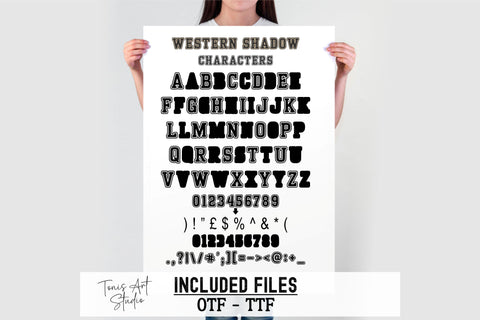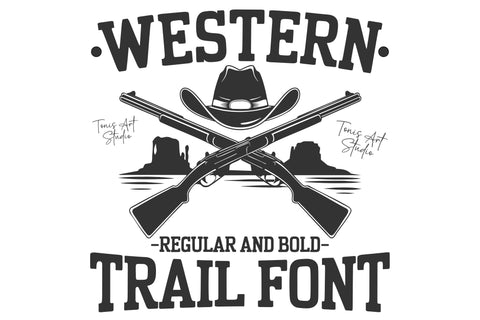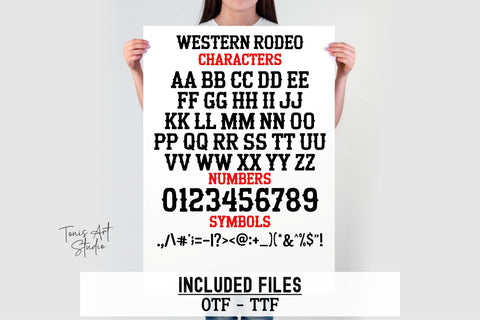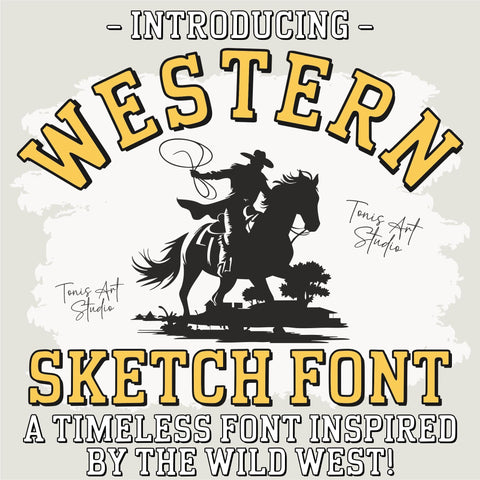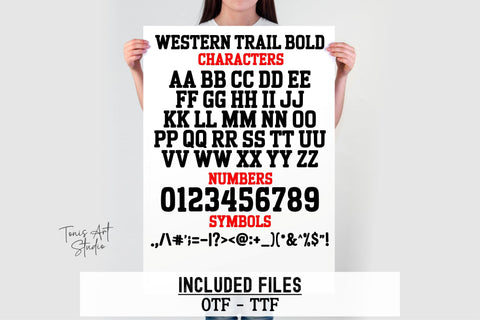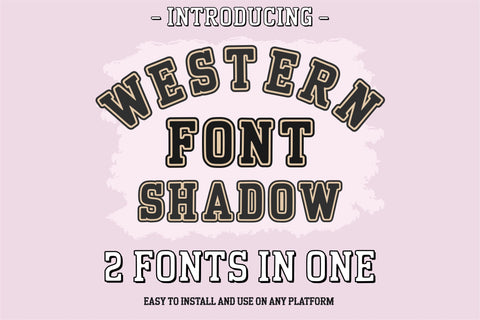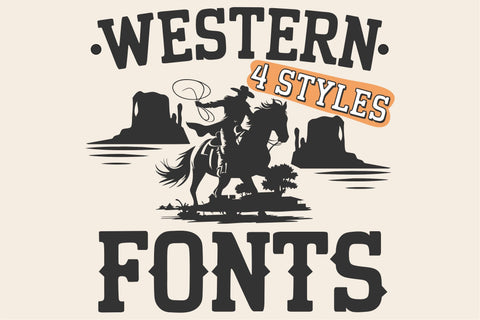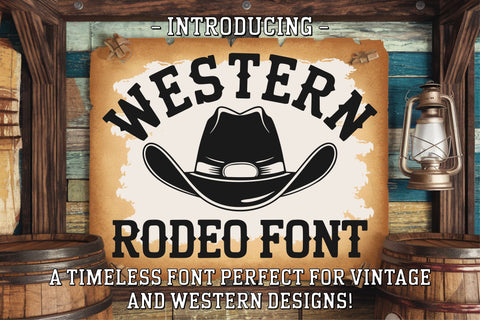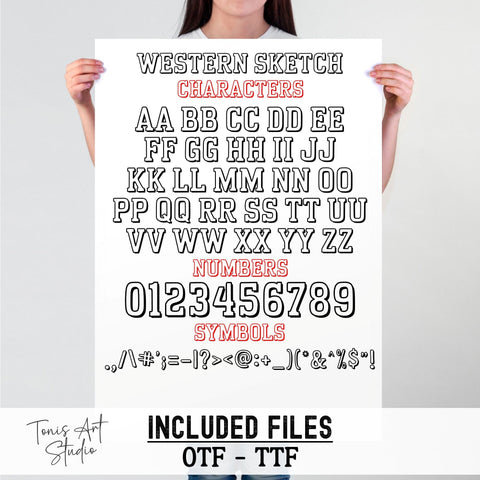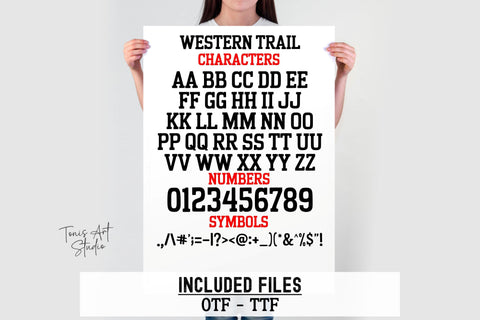
Western Font Bundle - 4 Styles | Rodeo, Trail, Shadow, Sketch | Bold & Regular | Rustic Cowboy Font for Cricut, Silhouette & Design
The Western Font Bundle is a rugged, bold, and rustic typeface collection designed to bring the spirit of the Wild West to your creative projects! This western-themed font pack is perfect for country, rodeo, and vintage designs—ideal for crafting, Procreate, Cricut, Silhouette, and Canva users alike.
With its bold serifs, textured sketch styles, and dynamic shadow effects, this font bundle is great for everything from farmhouse signs and rodeo posters to t-shirts, branding, and social media graphics. Add a rustic cowboy touch to your projects or keep it classic and bold—the possibilities are endless!
✔️ 4 Font Styles: Western Rodeo, Western Trail, Western Shadow Duo, and Western Sketch
✔️ Full alphabet (A-Z), numbers, and symbols